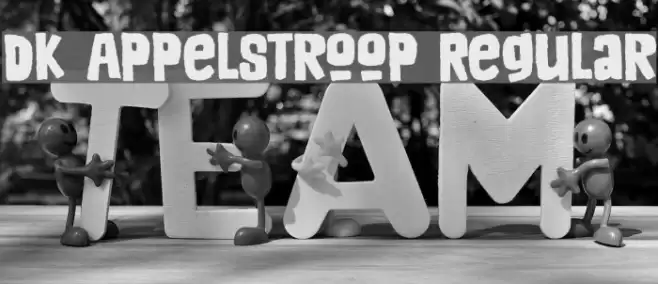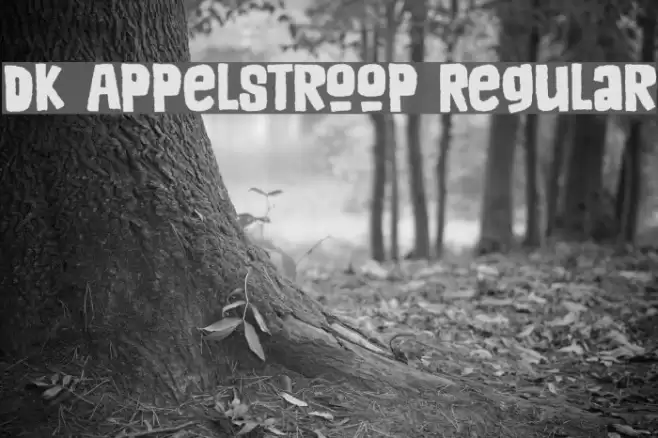
DK Appelstroop Regular Font
DK Appelstroop Regular Description
This font features a bold and playful design with a hand-drawn aesthetic. The characters are thick and slightly irregular, giving it a casual and artistic feel. The uppercase and lowercase letters maintain a consistent style, with rounded edges and a slightly distressed texture that adds to its charm. The numbers and special characters follow the same design principles, ensuring a cohesive look across all elements. The font's unique style is accentuated by the inclusion of apple-shaped symbols, adding a whimsical touch. Overall, this font is ideal for projects that require a fun and informal vibe.
A bold, playful font with a hand-drawn, artistic style and whimsical apple symbols from Uncategorized fonts.
- Proposed Projects: Ideal for children's books, playful branding, posters, and creative invitations.
- Overall Style: Playful, Artistic